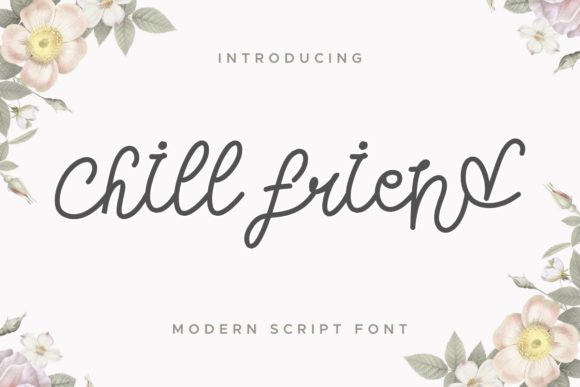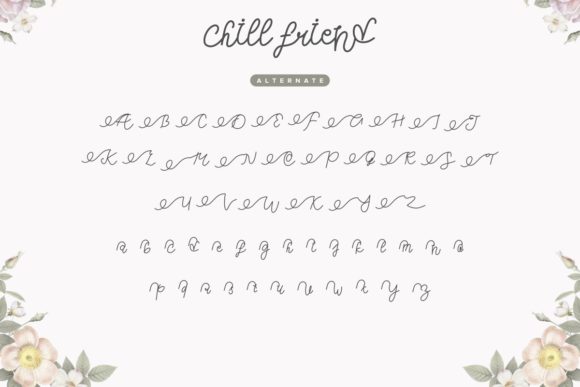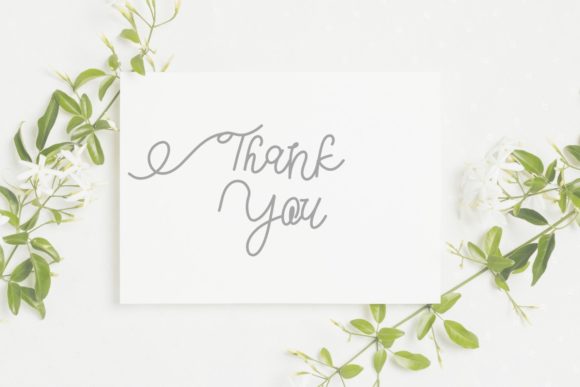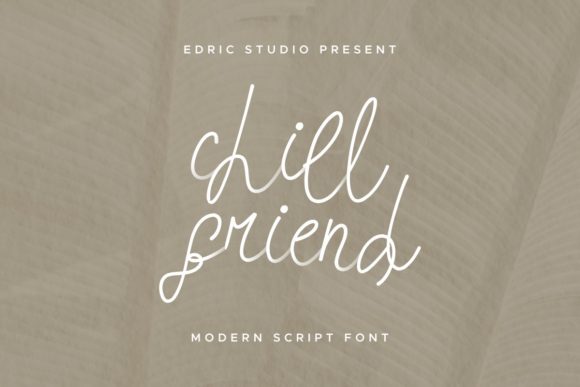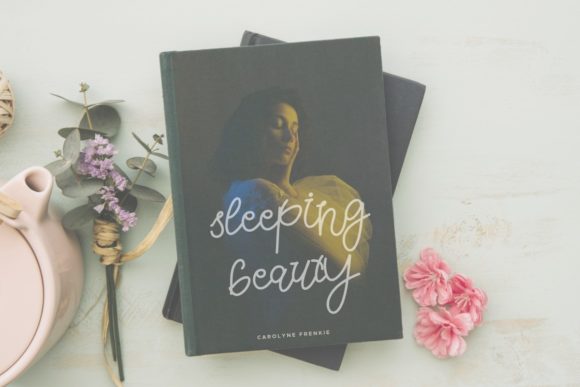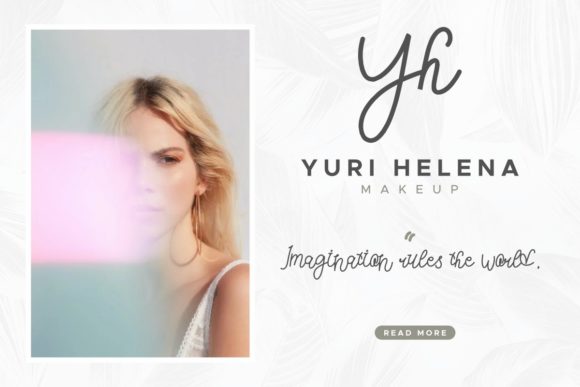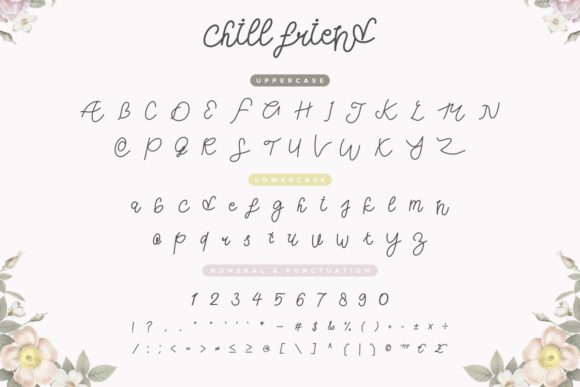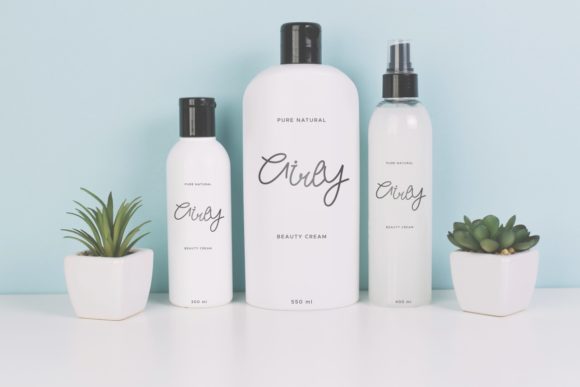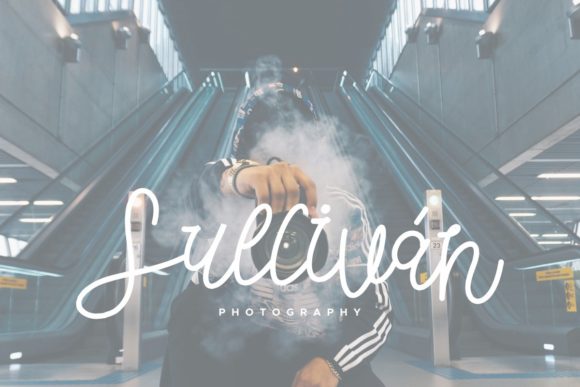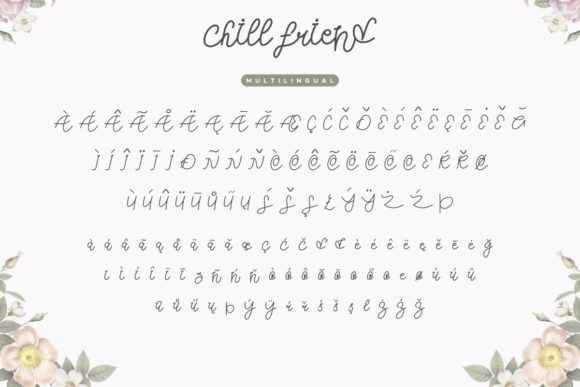
Chill Friend Font
About Chill Friend Font
Chill Friend feels equally charming and elegant. It looks stunning on wedding invitations, thank you cards, quotes, greeting cards, logos, business cards and every other design which needs a handwritten touch.